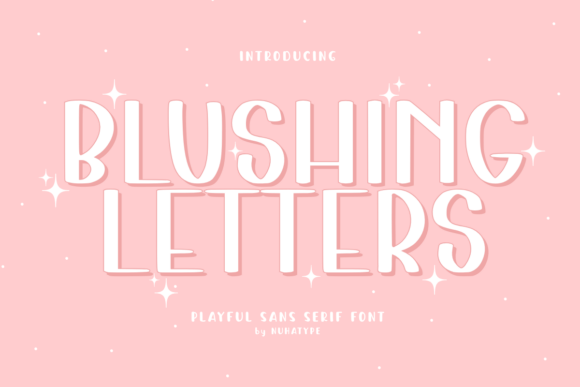
The Blushing Letters Font: A Sweet Addition to Your Design Arsenal
Have you ever been in the middle of a design project, and suddenly, you’re stuck on finding the perfect font? I recall a recent experience where I was working on a nursery wall art project for a client’s baby shower gift. The design needed to convey warmth, playfulness, and a touch of sweetness. That’s when I stumbled upon the Blushing Letters font, and it instantly became the perfect fit.
An Honest Review of Blushing Letters Font
What I Love About Blushing Letters Font ✨
- ✅ Soft, friendly, and immensely huggable sans serif that brings a playful energy to any design.
- ✅ Rounded terminals and a slightly plump silhouette that feels approachable and kind.
- ✅ Incredibly easy to read, making it suitable for both headlines and short bursts of body text.
- ✅ Subtle offset shadow/layering effect in the preview, suggesting its versatility for bubble style designs, stickers, and youth-oriented branding.
- ⚠️ The font’s playful nature might not be suitable for more formal or corporate designs.
- ⚠️ Limited use of uppercase letters might make it less ideal for designs requiring extensive use of all-caps text.
Blushing Letters font comes with a range of OpenType features and glyphs that can enhance your design. Look for:
- Stylistic alternates for varied letterforms.
- Swashes and ligatures for added flair.
- Glyphs for creating custom icons and graphics.
The Story Behind Blushing Letters Font
Blushing Letters font was designed with the intention of creating a typeface that exudes warmth and approachability. The designer aimed to craft a font that would be perfect for designs requiring a playful, youthful touch. Inspired by traditional children’s book illustrations and modern digital design trends, Blushing Letters font is the result of a meticulous design process.
Q: What type of designs is Blushing Letters font best suited for?
A: Blushing Letters font is ideal for social media graphics, nursery wall art, bakery branding, and any design that requires a sweet, playful touch.
Q: Is Blushing Letters font easy to read?
A: Absolutely! Blushing Letters font is designed to be incredibly easy to read, making it perfect for both headlines and short bursts of body text.
Q: Can I use Blushing Letters font in combination with other fonts?
A: Yes, Blushing Letters font pairs beautifully with simple line-art illustrations and pastel color palettes. Feel free to experiment with different font combinations to find the perfect match for your design.